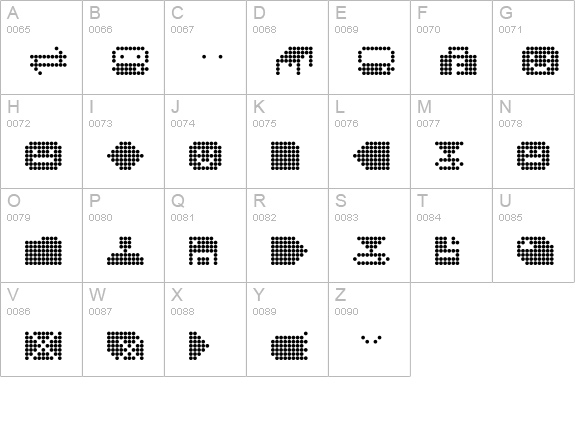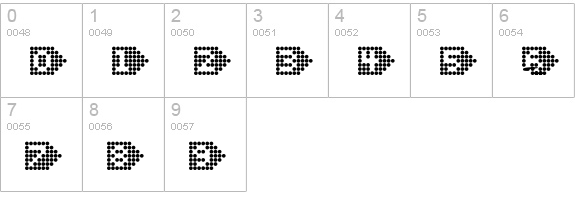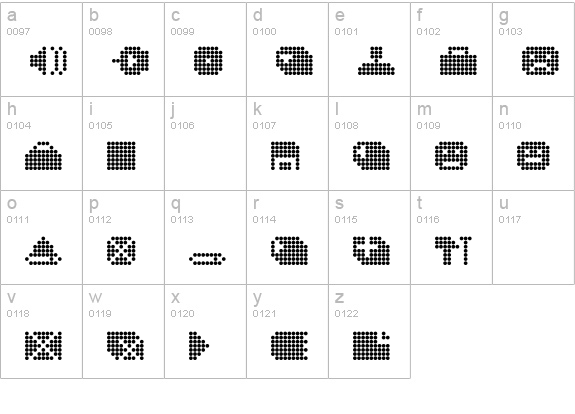
DS SysBat font is a modern and sleek typeface designed for digital interfaces, signage, and branding projects. With its sharp lines and futuristic aesthetic, this font is perfect for creating a contemporary and cutting-edge look. The unique geometric shapes of DS SysBat font make it stand out from the crowd, giving your designs a bold and dynamic feel. Best of all, DS SysBat font is available for free download at FontsMarket.com. Whether you're a designer looking to add a fresh and innovative touch to your work or a business owner looking to make a statement with your branding, DS SysBat font is a versatile option that will elevate your projects to the next level. Download it today and start creating eye-catching designs that leave a lasting impression.